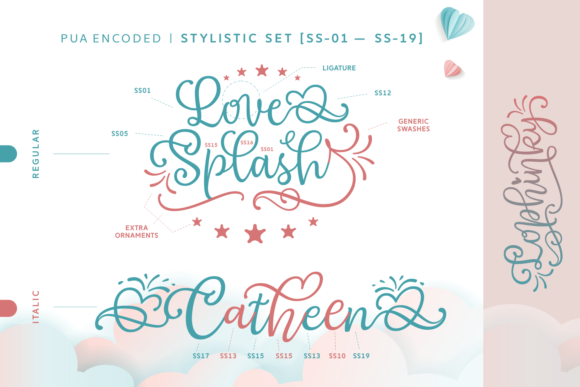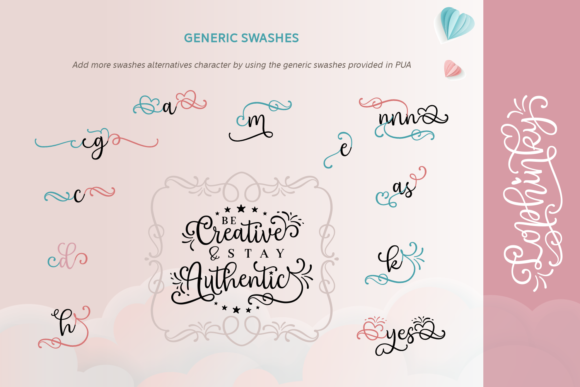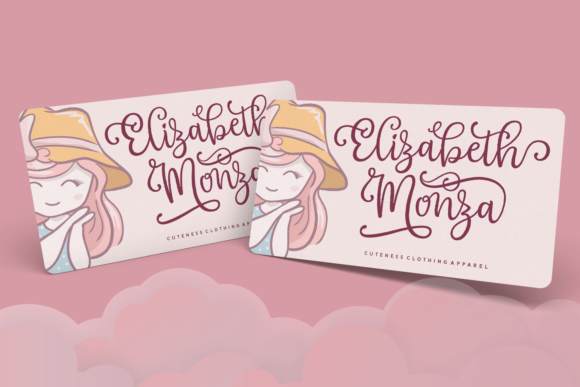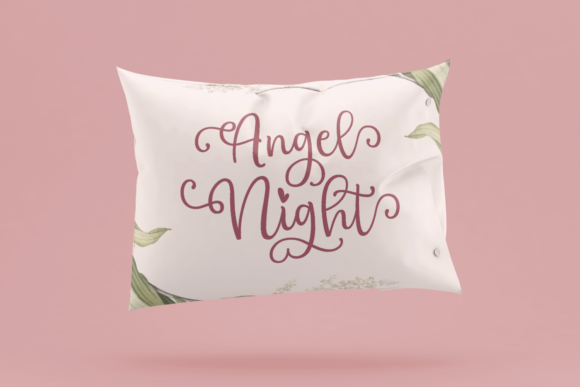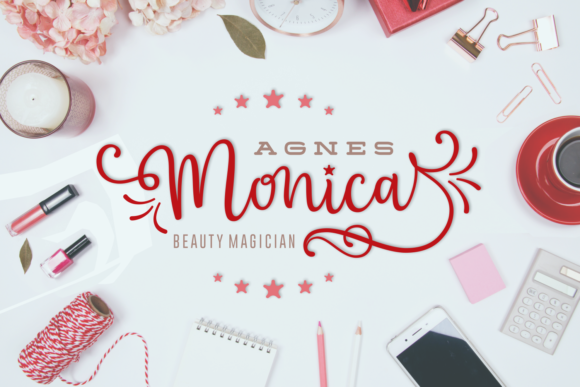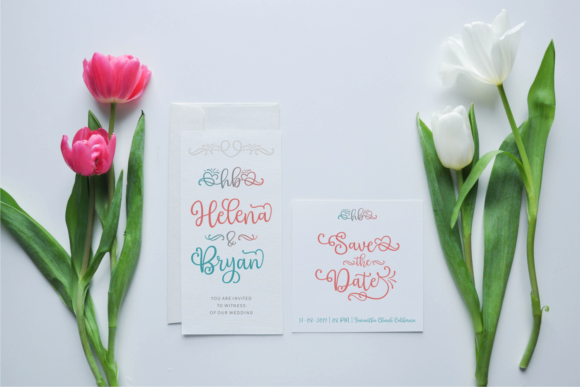
Introduction to Lophinky Font Font
Fonts play a crucial role in design, and the Lophinky Font font is a typeface that brings both character and versatility to any project. Whether you’re working on a branding project, a website, or a print design, the Lophinky Font font offers a unique style that can elevate your work.
Lophinky is a quirky handwritten script font featuring playful flourishes.
Great for a variety of creative projects .
Key Features of Lophinky Font Font
Why Choose Lophinky Font Font?
The Lophinky Font font is more than just a typeface – it’s a design tool that helps you communicate your message with style and clarity. Its unique character set and versatile design make it suitable for a wide range of applications, from elegant invitations to bold headlines.
With its carefully crafted letterforms and balanced proportions, the Lophinky Font font ensures readability and visual appeal across all mediums.
What makes Lophinky Font font special?
The Lophinky Font font stands out with its unique design, exceptional readability, and versatility across various design applications.